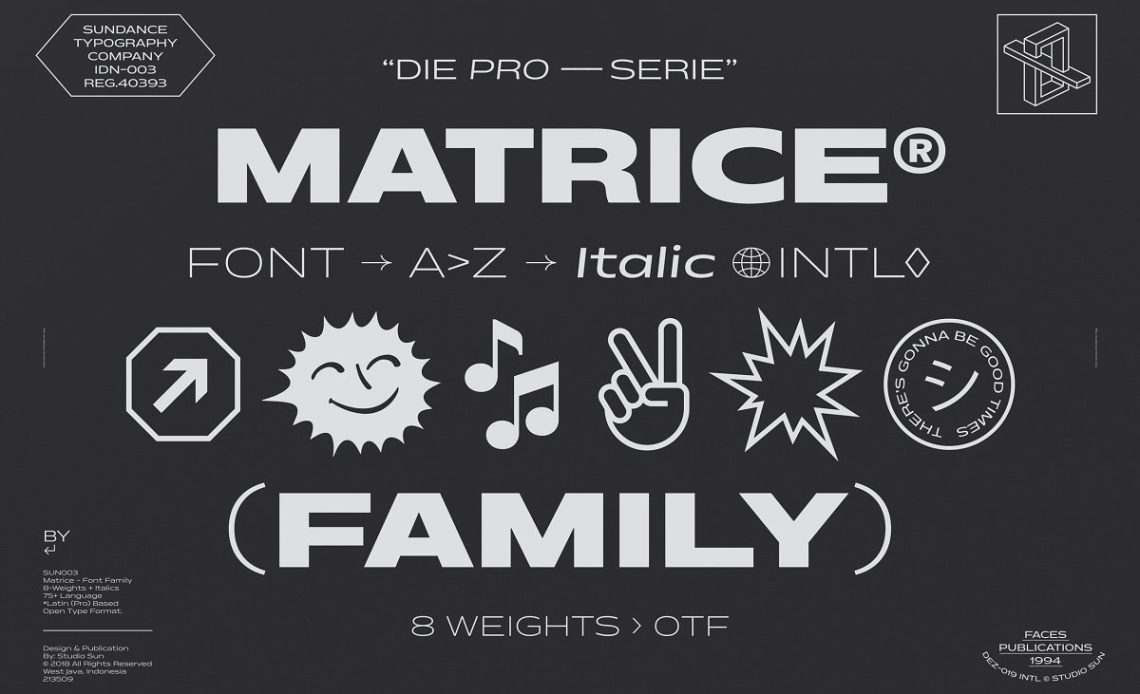
Introducing Matrice, the ultimate font family for anyone seeking to create captivating and engaging content. This sans-serif display font family is perfect for branding, logotype, headline text, and caption. Developed by Studio Sun*, Matrice is influenced by the grotesk typefaces of the early 20th century, making it a timeless and classic font that will elevate any project.
Matrice comes in 8 weights, ranging from extra light to black, with matching natural italics. It supports over 75 Latin-based languages, making it a versatile choice for anyone looking to create content in multiple languages. Whether you're creating a book title page, a company logo, or a social media post, Matrice has you covered.
With its clean lines and minimalist design, Matrice is the perfect font for those looking to make a statement with their content. Its unique design ensures that your content will stand out and grab your audience's attention. And with both OTF and TTF files included, you can use Matrice in a variety of applications.